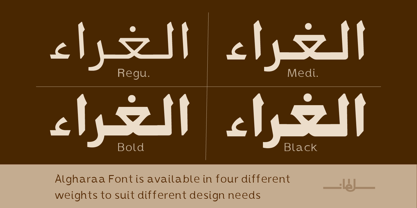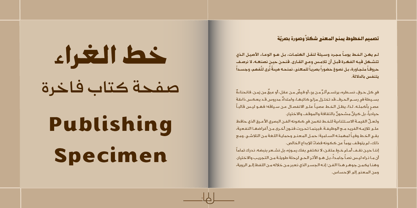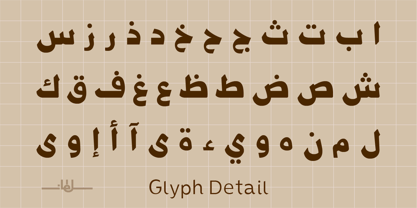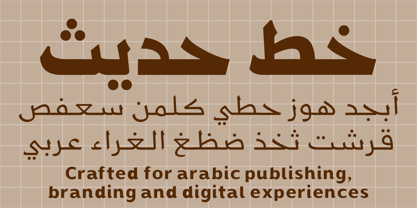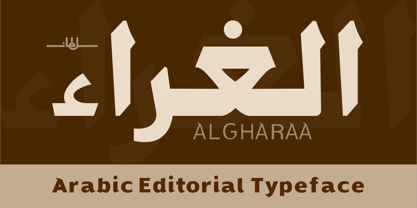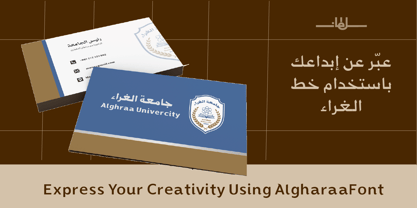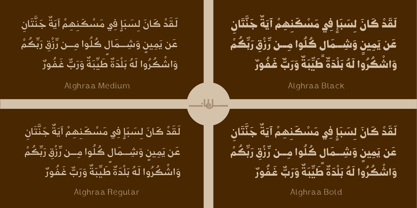
SF Alghraa
La famille de polices SF Alghraa a été conçue par Sultan Maqtari et publiée par Sultan Fonts. SF Alghraa contient 4 styles et options de package familial. En savoir plus sur cette famille
Algharaa is a modern Arabic typeface family meticulously crafted by type designer Sultan Maqtari. Designed with precise geometric grid alignment, it seamlessly bridges the gap between classic editorial structure and high-end contemporary branding.
Key Features:
• Four Versatile Weights: Available in Regular, Medium, Bold, and Black, offering full flexibility from immersive long-form text to high-impact display headlines and luxury packaging.
• High-Contrast Geometry: Features a sophisticated stroke contrast and sharp terminals that guarantee exceptional legibility across both print layouts and digital screens.
• Editorial Excellence: Engineered with flawless vocalization (Tashkeel) placement, making it the premier choice for luxury book publishing, premium magazines, and cultural journals.
• Commanding Brand Identity: Delivers a powerful, authoritative, and sophisticated presence ideal for corporate stationary, corporate signage, and institutional logos.
Best Used For: Editorial design, newspaper and book typography, luxury brand identity, packaging headlines, and clean digital user experiences (UI/UX).